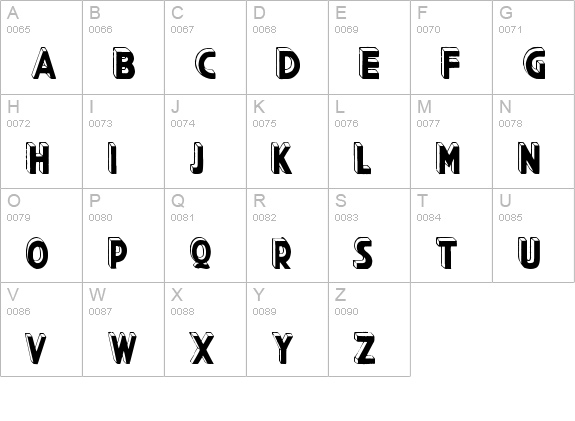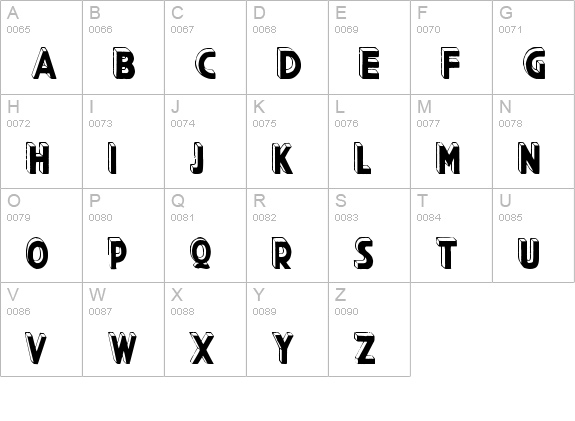
Introducing the vibrant and captivating Comic Filled Marta Van Eck font! Bursting with playful energy and whimsical charm, this typeface is perfect for adding a touch of lightheartedness to any design project. With its bold and exaggerated letterforms, Comic Filled Marta Van Eck captures the essence of comic book artistry, bringing life and character to every word. Its carefully crafted curves and distinctive strokes make it a standout choice for titles, headlines, and signage that demand attention. This font is not only visually appealing but also incredibly versatile. Whether you're designing a comic book, a children's book, a poster, or a logo, Comic Filled Marta Van Eck will effortlessly inject a sense of fun and excitement into your creations. And the best part? Comic Filled Marta Van Eck is available for free download at FontsMarket.com! Yes, that's right – you can add this delightful font to your collection without spending a dime. Simply head over to FontsMarket.com and start exploring the endless creative possibilities that await you. So, if you're looking for a bold and expressive font that captures the essence of comic book art, look no further than Comic Filled Marta Van Eck. Download it for free today and let your imagination run wild!